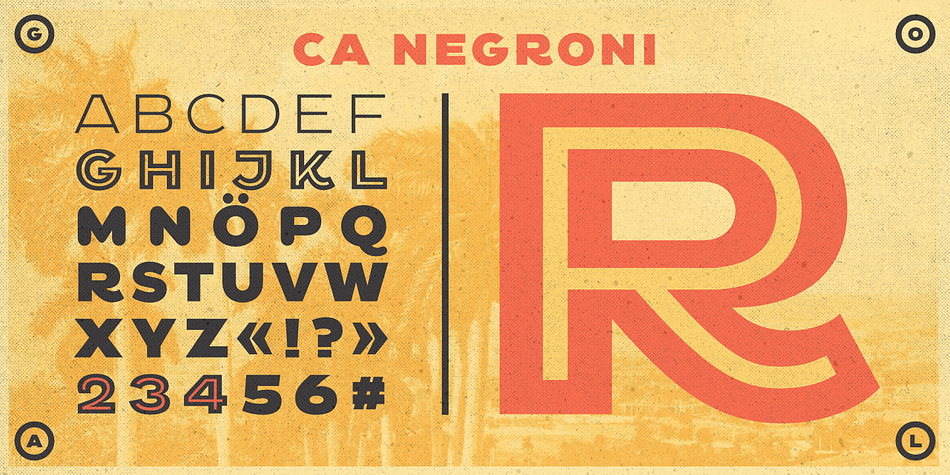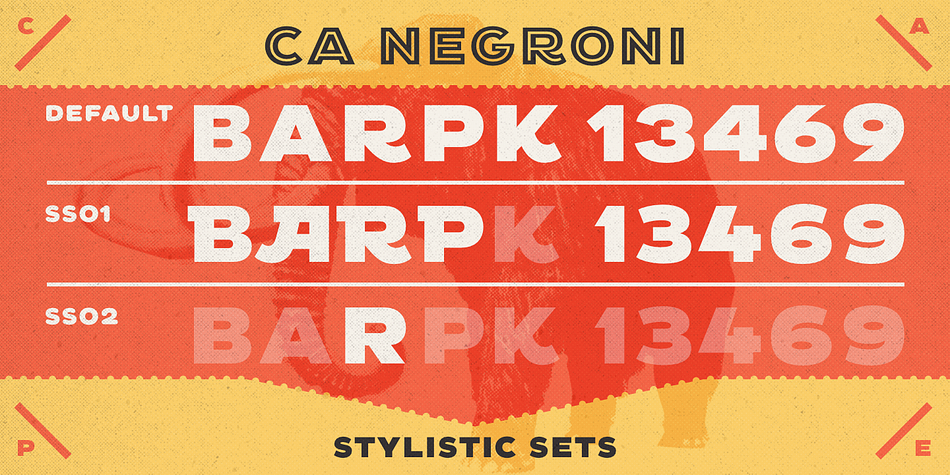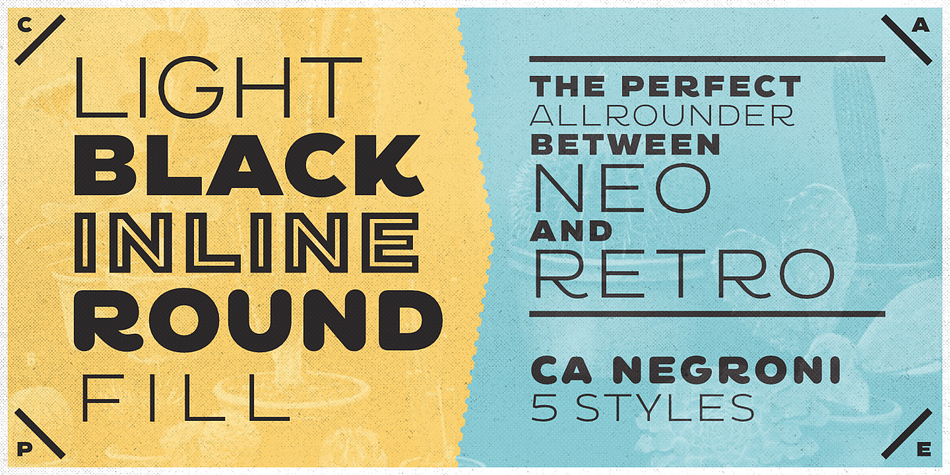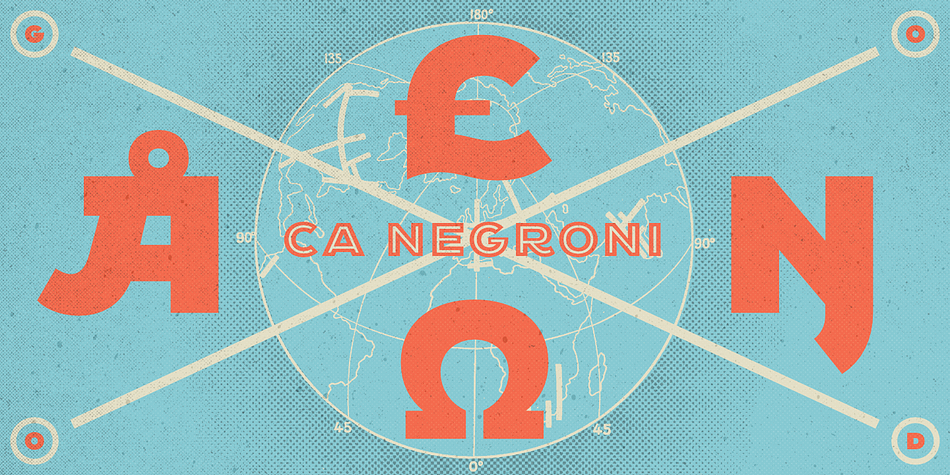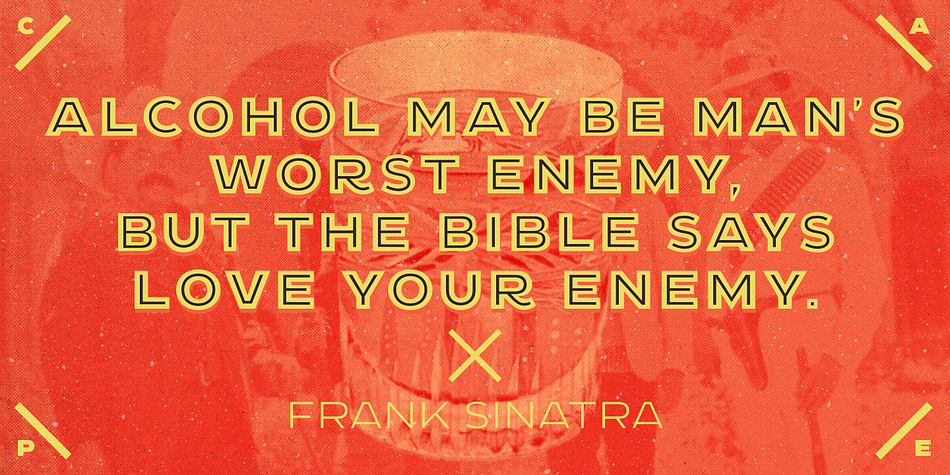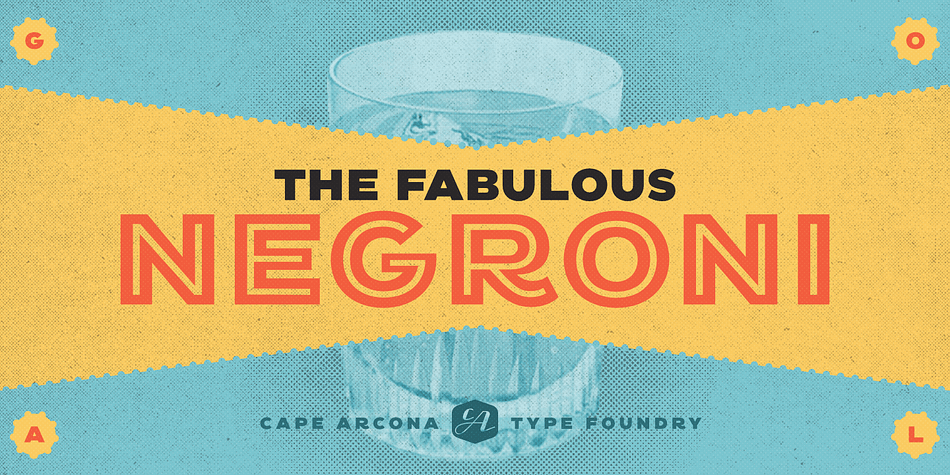
Designed by Stefan Claudius, CA Negroni is a display sans font family. This typeface has five styles and was published by Cape Arcona Type Foundry.
CA Negroni is a solid display typeface that is heavily inspired by early 20th century advertising typography. Especially European graphic pioneers like Wilhelm Deffke (1887–1950) used to draw fonts like this.
Despite of the historic roots, CA Negroni is a rather contemporary typeface featuring Central European language support and two stylistic sets, offering alternative letter shapes to give the font a different flavor.
Negroni comes in three different styles. Normal (Light + Black + Fill), Inline and Round. While sharing the same geometry, all three fonts have a unique atmosphere.